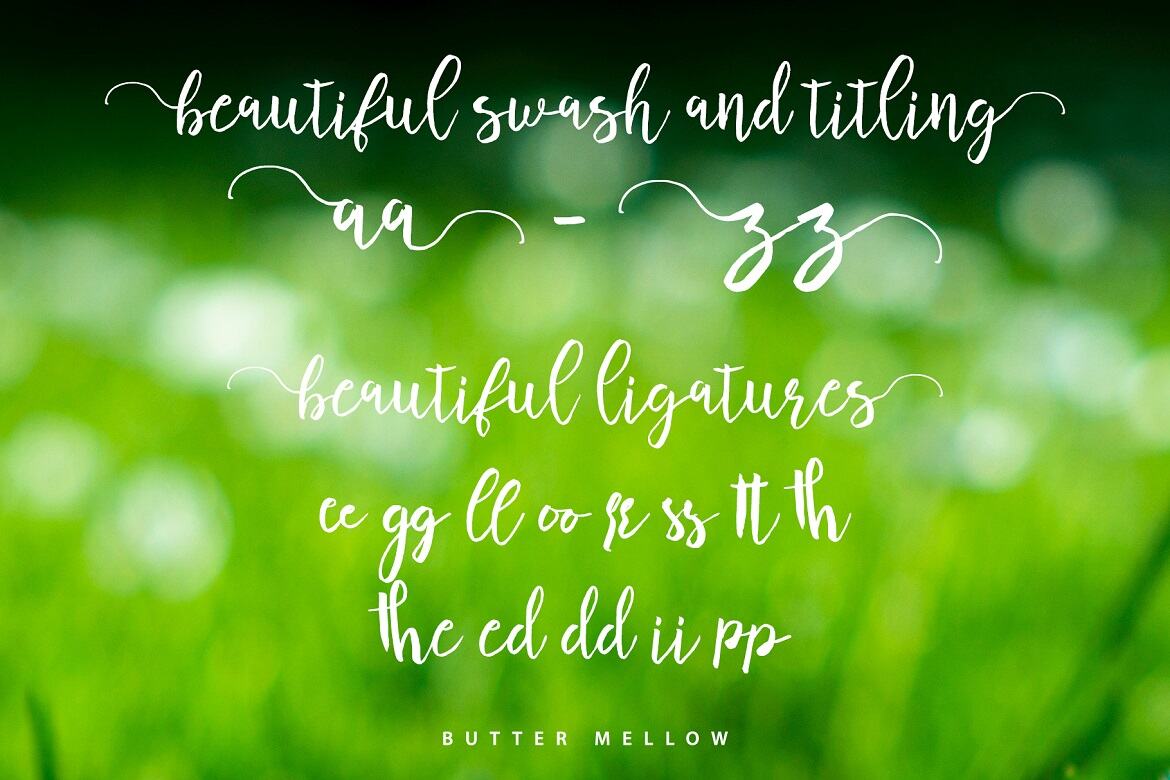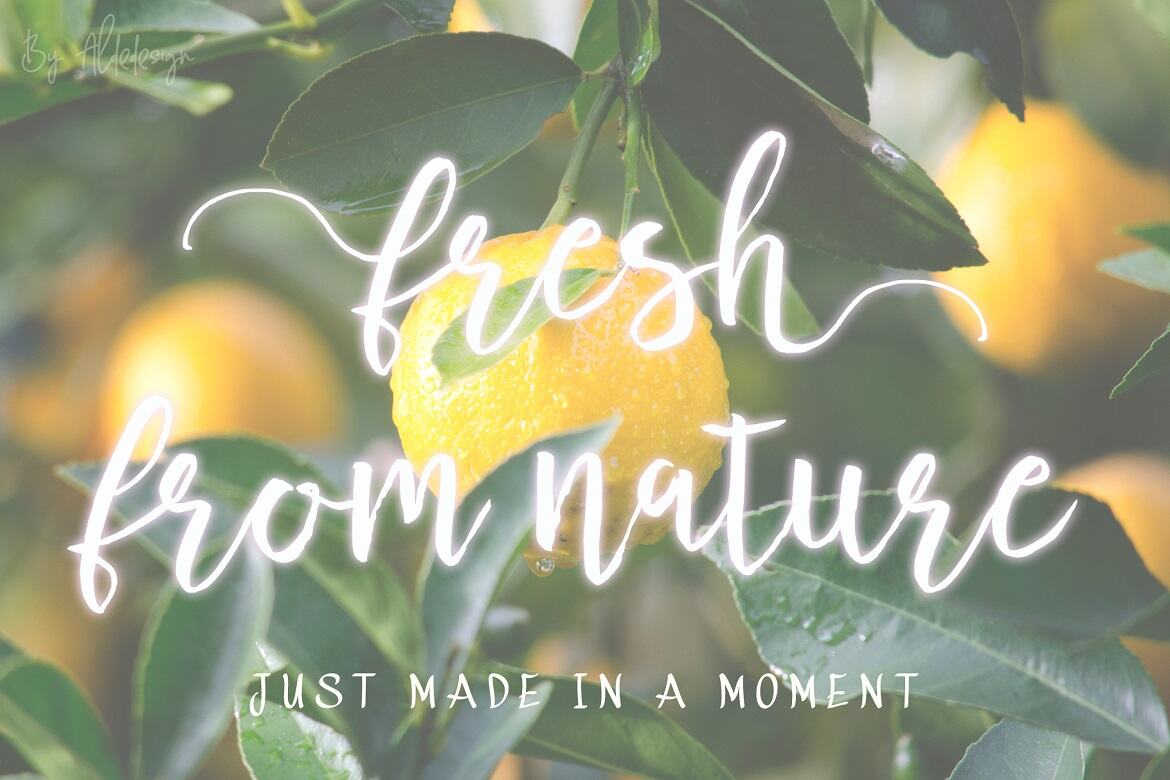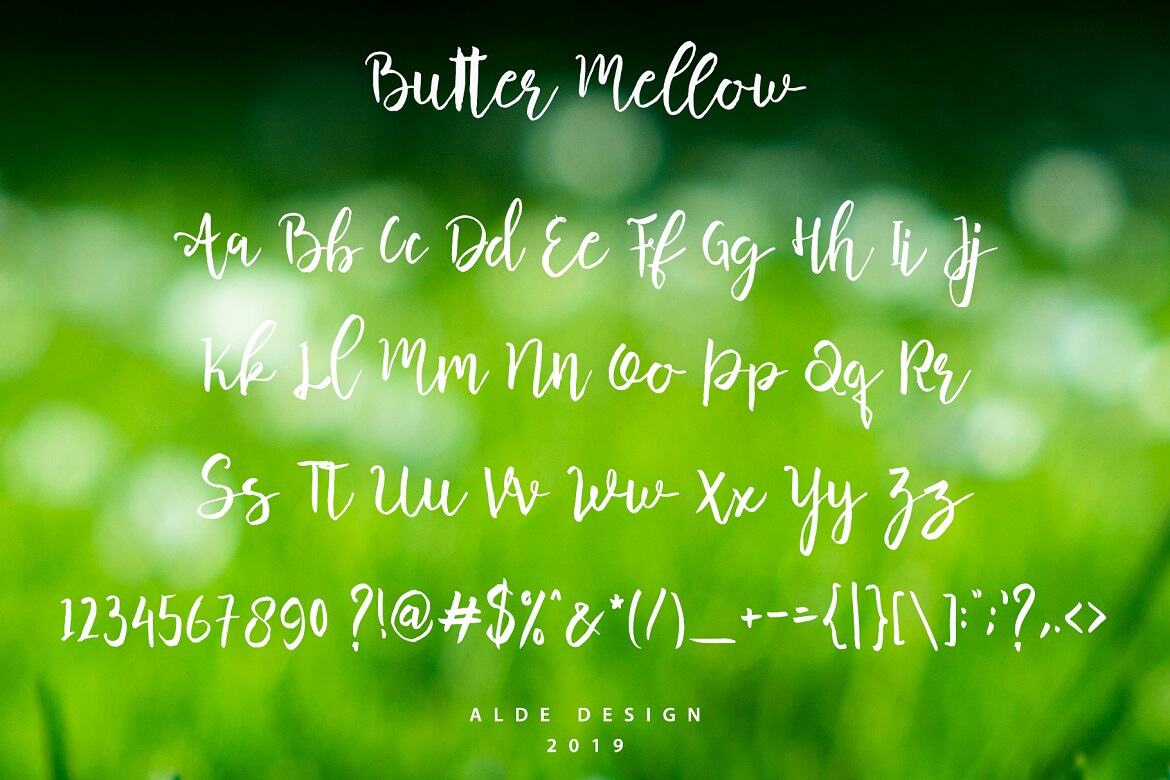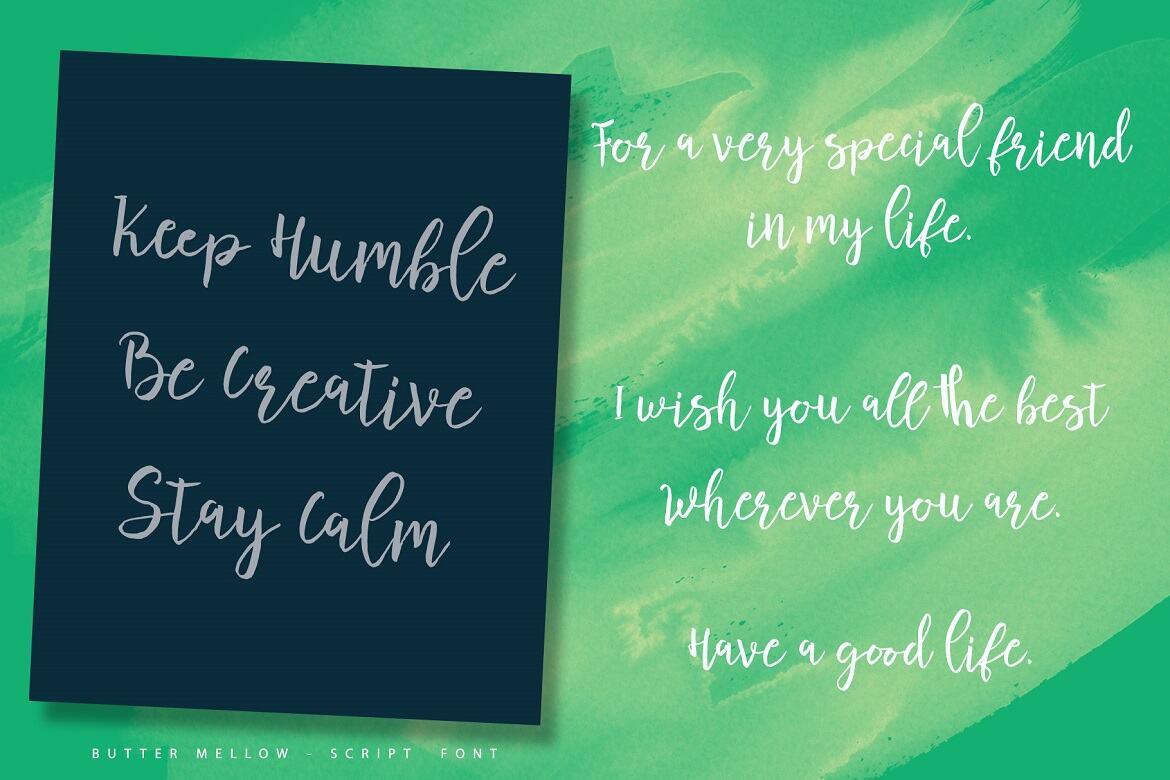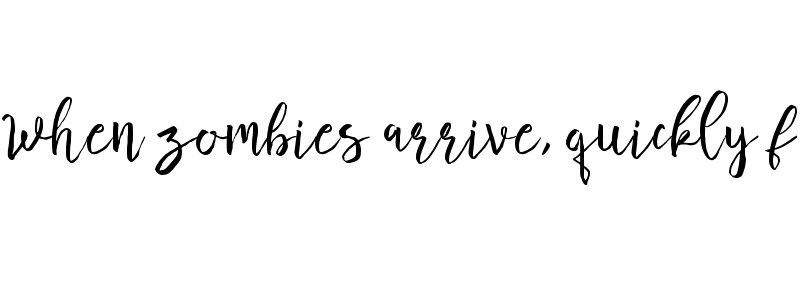
Butter Mellow - Free Font
Butter Mellow
Butter Mellow is a simple, yet beautiful handwritten font with a unique vibe. Get inspired by its light feel!
• each font has : stylish handwritten style, beautiful swash (ending tail), beautiful titling (beginning tail), special ligatures, multilingual support